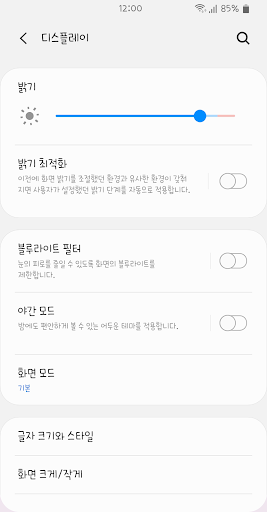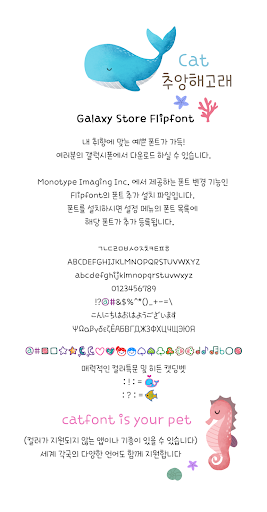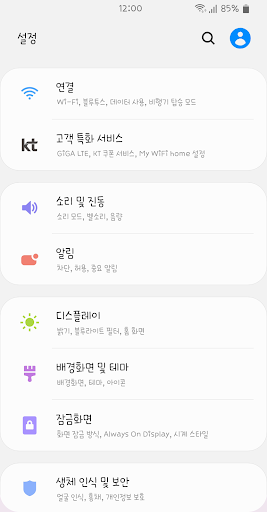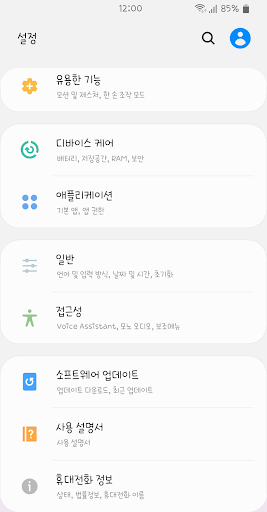
CatAdoreWhale.
catfont that delivers happiness.
catfont is ypur pet :)
this is thinking about the baby whale in the sea.
When think of a whale,
it's beautiful and mysterious :)
The design seems to have written clearly, but it is a little playful.
Including English, Japanese, and Vietnamese.
Germany, France, Russia, Italy, Portugal, Spain, Turkey, etc.
It also supports the languages of various European countries.
It supports a wide range of languages and special characters.
♥ Keyboard : ! : and : ? : If you type in a row,
Cat Font's unique dingbet is hidden.
♥ Including English, Japanese, and Vietnamese,
Germany, France, Russia, Italy, Portugal, Spain, Turkey, etc.
It also supports the languages of various European countries.
It supports a wide range of languages and special characters.